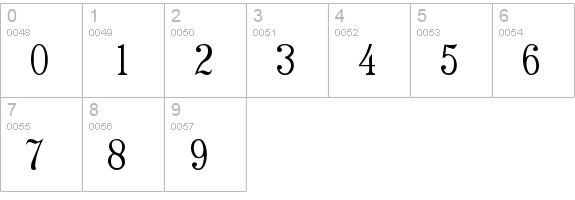
RataczakCond Plain Font Details
Introducing RataczakCond Plain, a sleek and modern font that effortlessly captures attention with its clean lines and timeless elegance. Designed with versatility in mind, this font is a perfect choice for a wide range of projects, from branding and logo design to print materials and web graphics. Featuring a balanced combination of sharp edges and gentle curves, RataczakCond Plain exudes a sense of sophistication and professionalism. Its clarity and legibility make it an excellent option for both headlines and body text, ensuring that your message is easily conveyed to your audience. What makes RataczakCond Plain even more appealing is that it is available for free download at FontsMarket.com. This means that you can enhance your designs with this remarkable font without breaking the bank. Simply head over to FontsMarket.com, and with just a few clicks, you'll have RataczakCond Plain at your disposal, ready to elevate your creations to new heights. Whether you're a seasoned designer or just starting on your creative journey, RataczakCond Plain is a must-have addition to your font collection. Its versatility, elegance, and the fact that it is freely available at FontsMarket.com make it an invaluable resource for all your design needs. So don't miss out on this opportunity to take your projects to the next level – download RataczakCond Plain today and let your creativity soar.